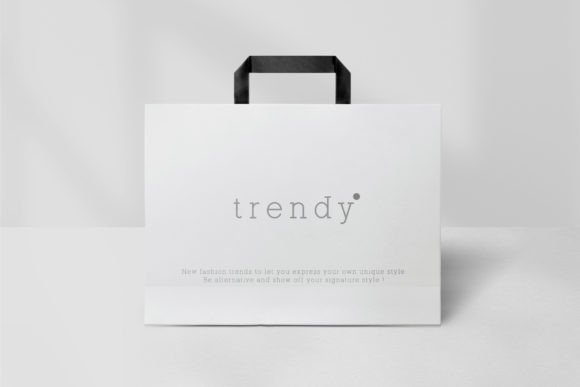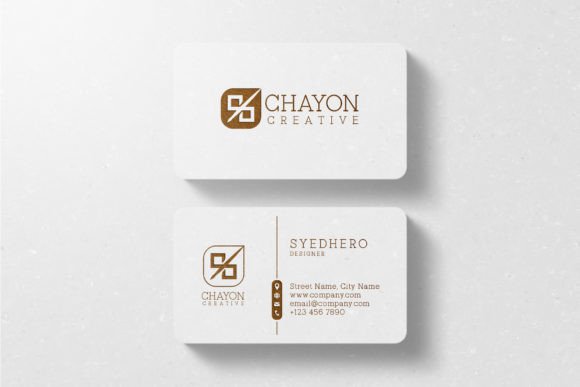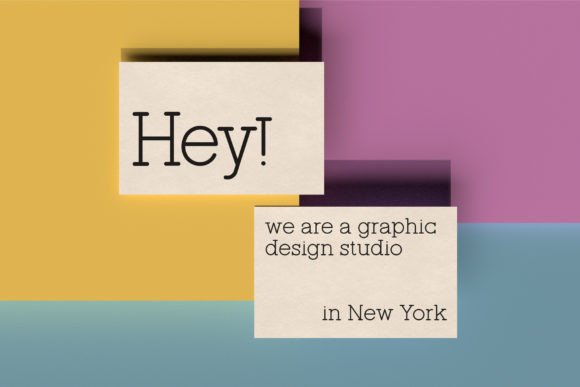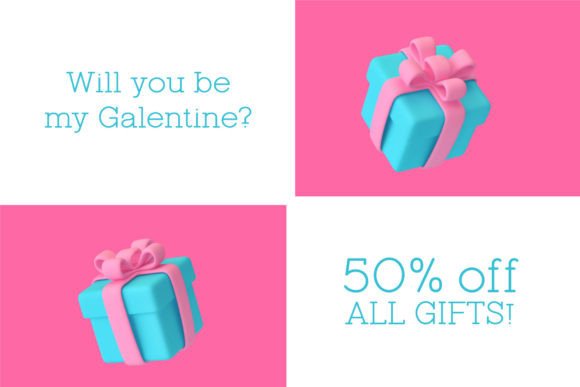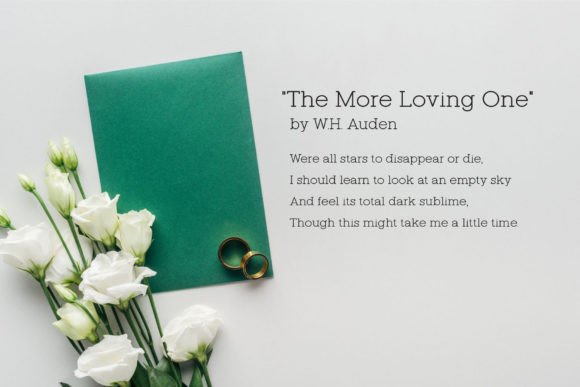
The Perfect Font for a Polished Touch
As a designer, there’s nothing quite like the thrill of bringing a new project to life. You’ve poured your heart and soul into the concept, the colors, and the layout – but sometimes, it all comes down to the font. Will it be bold and eye-catching, or elegant and understated? For many designers, the answer lies in Fox Clean Font, a versatile and sophisticated typeface that’s perfect for adding a touch of polish to any project.
Whether you’re working on a logo, a website, or a print project, Fox Clean Font is an invaluable tool in your design arsenal. Its clean design and subtle serifs make it easy to read, while its effortless style pairs beautifully with a wide range of other fonts. By incorporating Fox Clean Font into your work, you’ll be able to elevate your designs and take them to the next level.
Key Features of Fox Clean Font
- Font Size: The font is available in a single weight, but it can be easily scaled to suit various design needs, making it suitable for both body text and headings.
- Resolution: Fox Clean Font is designed for use at high resolutions, making it ideal for digital applications, such as web design, mobile apps, and e-books.
- Unique Characteristics: The font features a clean and minimalist design, with a focus on legibility and readability. Its unique characteristics include a high x-height and a subtle rounded edge, making it easy to read even at small font sizes.
Designer Review: Fox Clean Font
Overall, I have mixed feelings about the Fox Clean Font. Let’s start with what works well ✨. The font has a clean and modern aesthetic that would be perfect for corporate branding, tech startups, and other industries that value simplicity and professionalism. The font is also highly legible, making it an excellent choice for body text and longer passages.
Here are some specific strengths:
- Highly legible and clear
- Perfect for corporate branding and tech startups
- Clean and modern aesthetic
However, there are also some limitations ⚠️. The font feels a bit sterile and lacks personality, which may make it less appealing to creative industries or those looking for a more unique brand identity. Additionally, the font may not be suitable for display purposes, such as headings or titles, as it can feel a bit too plain and unremarkable.
Overall, I would recommend the Fox Clean Font for industries that value simplicity and professionalism, but it may not be the best choice for those looking for a more unique or creative brand identity.
Tips for Getting the Most Out of Fox Clean Font
For best results, use Fox Clean Font in conjunction with a clean and minimalistic design aesthetic.
Experiment with different font sizes and styles to create visual interest and emphasis.
Use Fox Clean Font for headings and titles to create a clear hierarchy of information.
Fox Clean Font is ideal for:
Corporate branding and identity
Minimalistic graphic design
Modern and clean typography
Editorial and publishing design